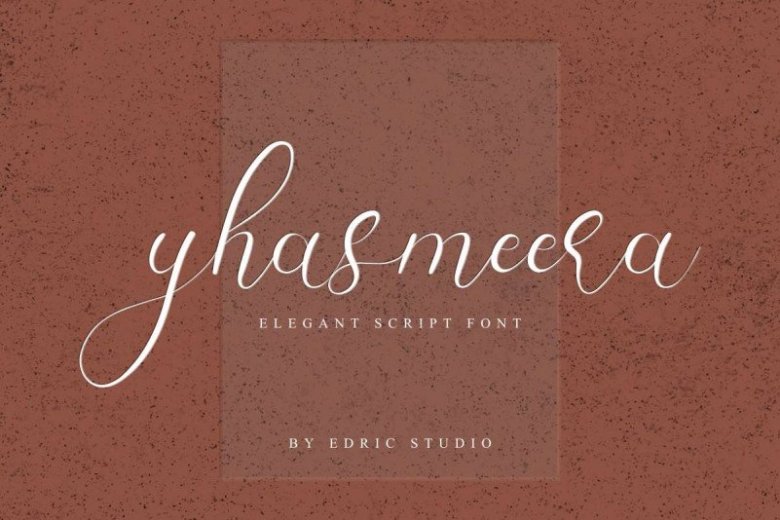
Yhasmeera Calligraphy Font
This font has an exclusive beautiful calligraphy style. The characters of this font is sophisticated, feminine, glamourous, luxury, elegant, vintage and natural look. With these styles you can explore many industries and designs categories : Wedding, Advertising, Display, Music, Cafe, florist, gardening, makeup, designer etc .